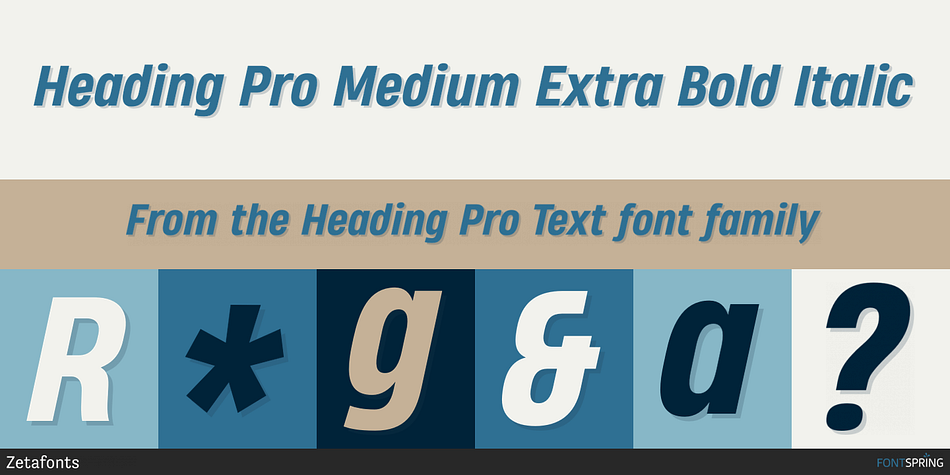
Heading Pro Medium Extra Bold Italic
Designed by Francesco Canovaro, Heading Pro Text is a sans serif font family. This typeface has fifty-four styles and was published by Zetafonts.
Heading Pro Medium, Heading Pro Double and Heading Pro Treble are three variants of the original Heading Pro typeface designed by Francesco Canovaro for Zetafonts.
These three medium width families have been added to the original condensed width family to be used in any case where you have to complement the space optimizing qualities of Heading Pro with some standard-proportioned text.
The range of widths of the Heading Medium collection extends into the Double and Treble widths, each coming in an ample range of weights with matching italics and a wide array of open type features that allow you to design text blocks with a fine grain control on appearance.
Each Heading Pro typeface includes over 800 characters with coverage for 100+ languages using Latin, Cyrillic and Greek alphabets. A full array of open-type features is included in each weight including stylistic alternates, small caps, old-style and tabular numerals and positional figures.
The full Heading Pro Super Family includes Heading Pro Ultra Compressed, Heading Pro, Heading Pro Text and Heading Pro Extended for a grand total of 146 fonts built around 8 different widths from ultra-compressed to ultra-wide and 9 weights from thin to black, providing a wide spectrum of sans serif type solutions to your design problems.
Designer Francesco Canovaro